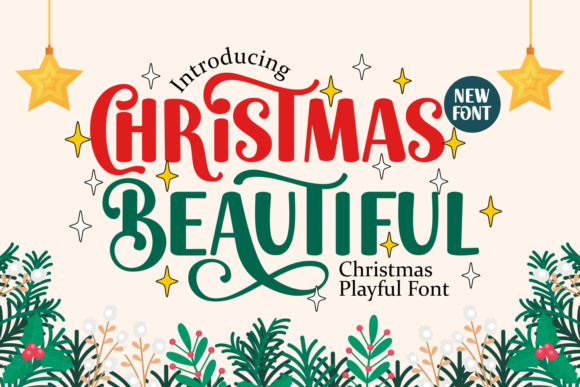
Get Ready to Deck the Halls with the Christmas Beautiful Font
As the holiday season approaches, I find myself surrounded by twinkling lights, warm scents of cinnamon, and the sound of festive tunes. There’s something magical about this time of year that sparks creativity and inspires us to make our celebrations truly special. For designers, it’s the perfect opportunity to unleash their inner holiday cheer and add a touch of whimsy to their Christmas projects.
That’s where the Christmas Beautiful Font comes in – a delightful typeface adorned with enchanting swashes that’s sure to spread the joy of the season. Whether you’re creating Christmas cards, decorations, or other festive goodies, this font is the perfect companion to help you add a dash of holiday magic to your designs.
Key Features of Christmas Beautiful Font
• Unique Characteristics: Includes decorative ornaments, festive symbols, and holiday-themed glyphs to enhance your Christmas designs
Christmas Beautiful Font Review
Overall, I think the Christmas Beautiful Font is a delightful addition to any holiday design project. It’s perfect for creating a festive and cheerful atmosphere. ✨ The font is beautifully crafted with intricate details and a unique charm that sets it apart from more generic holiday fonts.
The font includes a wide range of characters and glyphs, making it suitable for use in various contexts, from digital displays to print materials. ✨ It also supports multiple languages, which is a plus for designers who need to cater to diverse audiences.
Limits and Drawbacks
However, there are a few limitations to consider. ⚠️ The font is quite ornate, which can make it difficult to read at small font sizes. This may be a problem for designs where legibility is crucial, such as in body text or navigation menus.
Conclusion
• Perfect for festive and cheerful designs
• Beautifully crafted with intricate details
• Suitable for various contexts and languages
• May be difficult to read at small font sizes
Overall, I think the Christmas Beautiful Font is a great choice for designers who want to add a touch of holiday magic to their projects. Just be mindful of its limitations and use it judiciously to get the most out of it.
The Christmas Beautiful Font is perfect for creating festive holiday designs, such as:
Christmas cards, invitations, and gift tags
Holiday-themed social media graphics and ads
Christmas party decorations and signage
Combine the Christmas Beautiful Font with other festive elements, such as:
Red and green colors
Winter-themed illustrations and graphics
Gold or silver accents
Experiment with different font sizes and styles to create visual interest and emphasis.
Alternative Christmas Fonts for Designers
Great Vibes is a beautiful, elegant script font perfect for creating a sophisticated and luxurious feel. It’s ideal for use in invitations, wedding designs, and high-end branding. Great Vibes is more cursive and flowing than Christmas Beautiful Font, making it suitable for a wider range of applications.
Carolyna Pro is a modern, elegant script font designed to evoke a sense of luxury and sophistication. It’s perfect for use in high-end branding, invitations, and special occasion designs. Carolyna Pro is more refined and polished than Christmas Beautiful Font, making it ideal for designers who want to create a premium look.
Pacifico is a beautiful, elegant script font with a relaxed and casual feel. It’s perfect for use in beach-themed designs, summer invitations, and casual branding. Pacifico is more laid-back and effortless than Christmas Beautiful Font, making it suitable for designers who want to create a carefree and fun atmosphere.